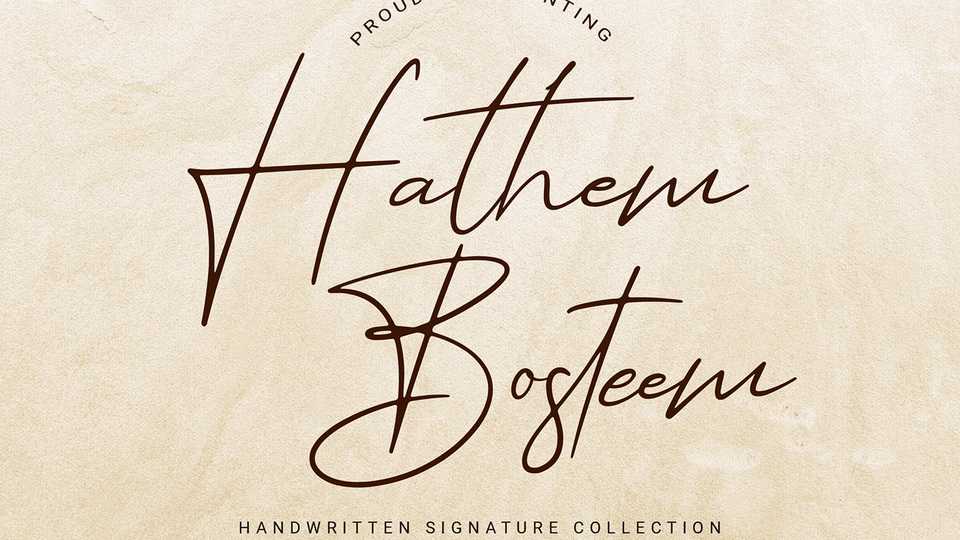
Download Hathem Bosteem font, a gorgeous, relaxed signature style handwritten script. With Hathem Bosteem’s authentic feel and use it to create outstanding wedding invitations, beautiful stationary art, eye-catching social media posts, and cute greeting cards.
Designer: Abas Creative